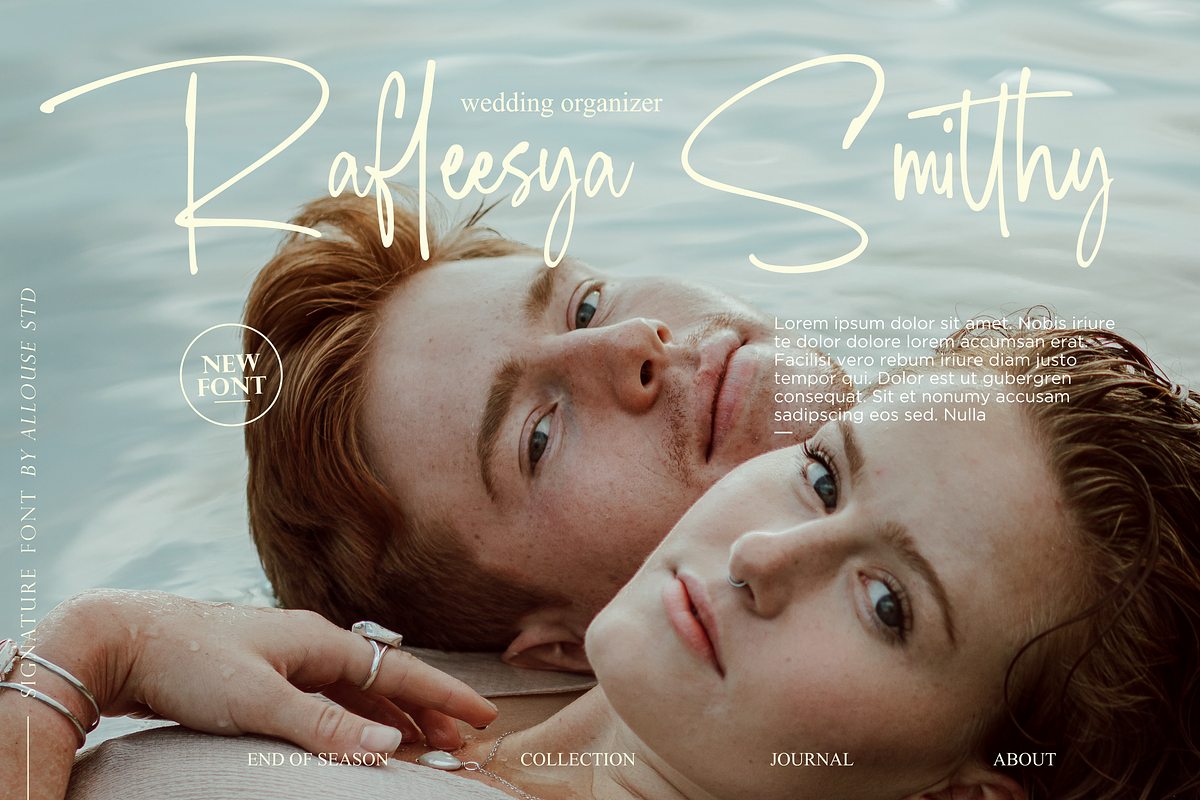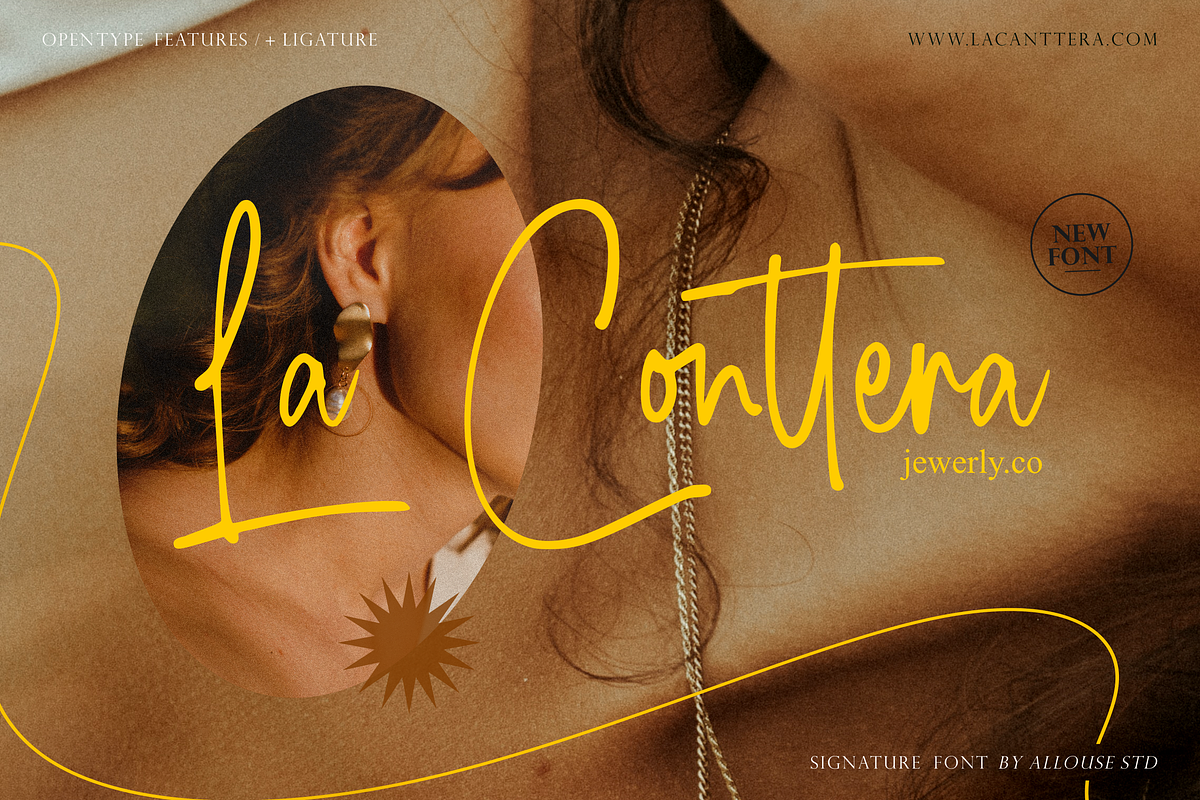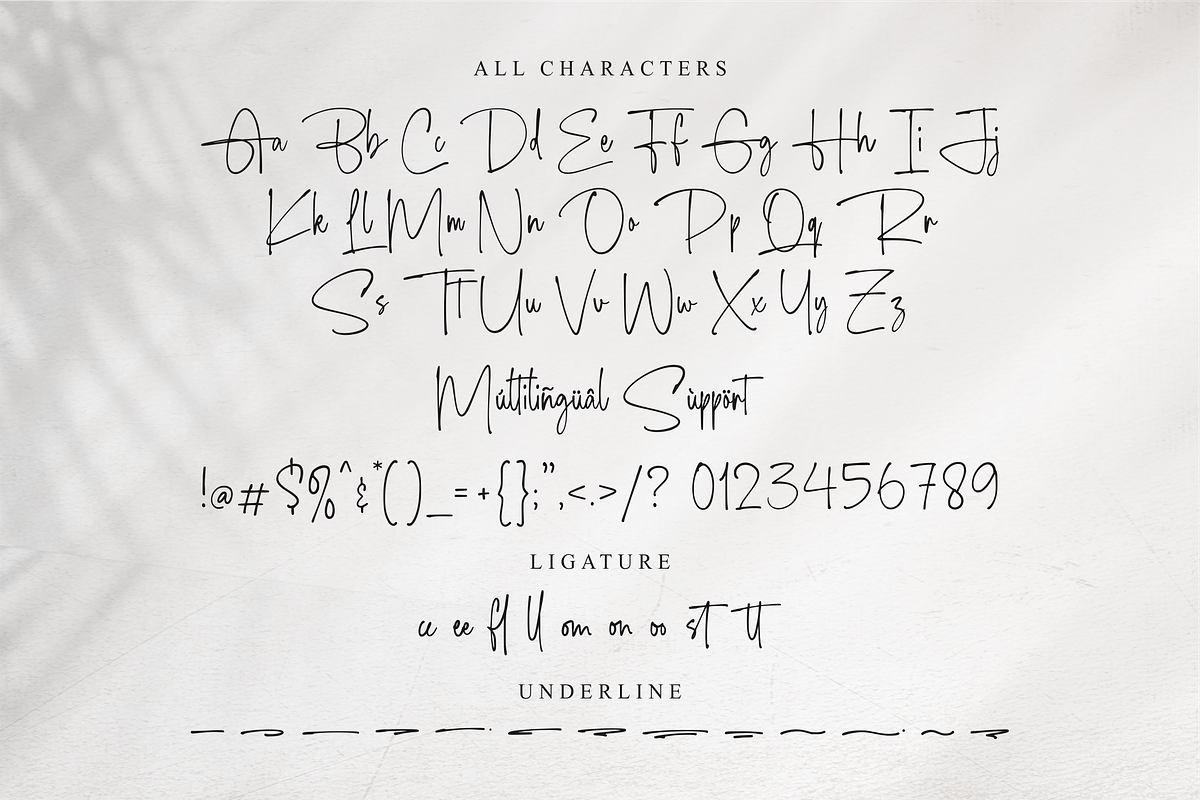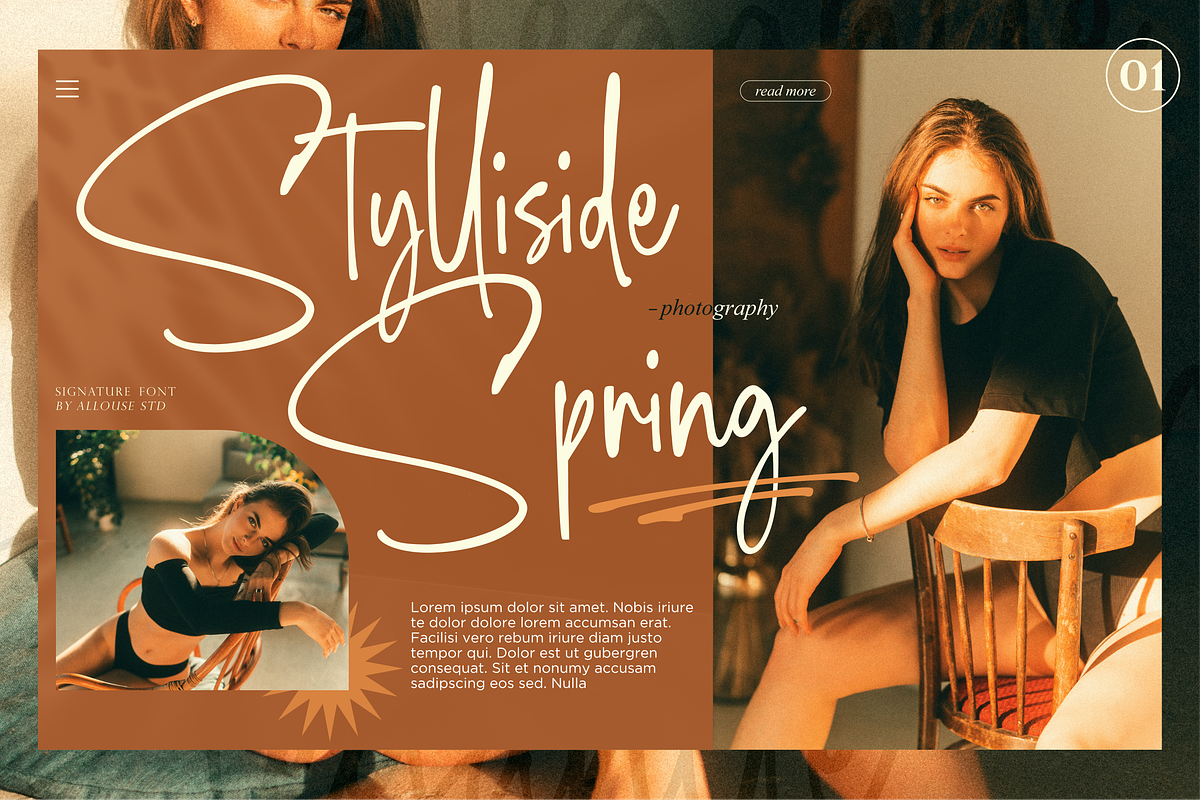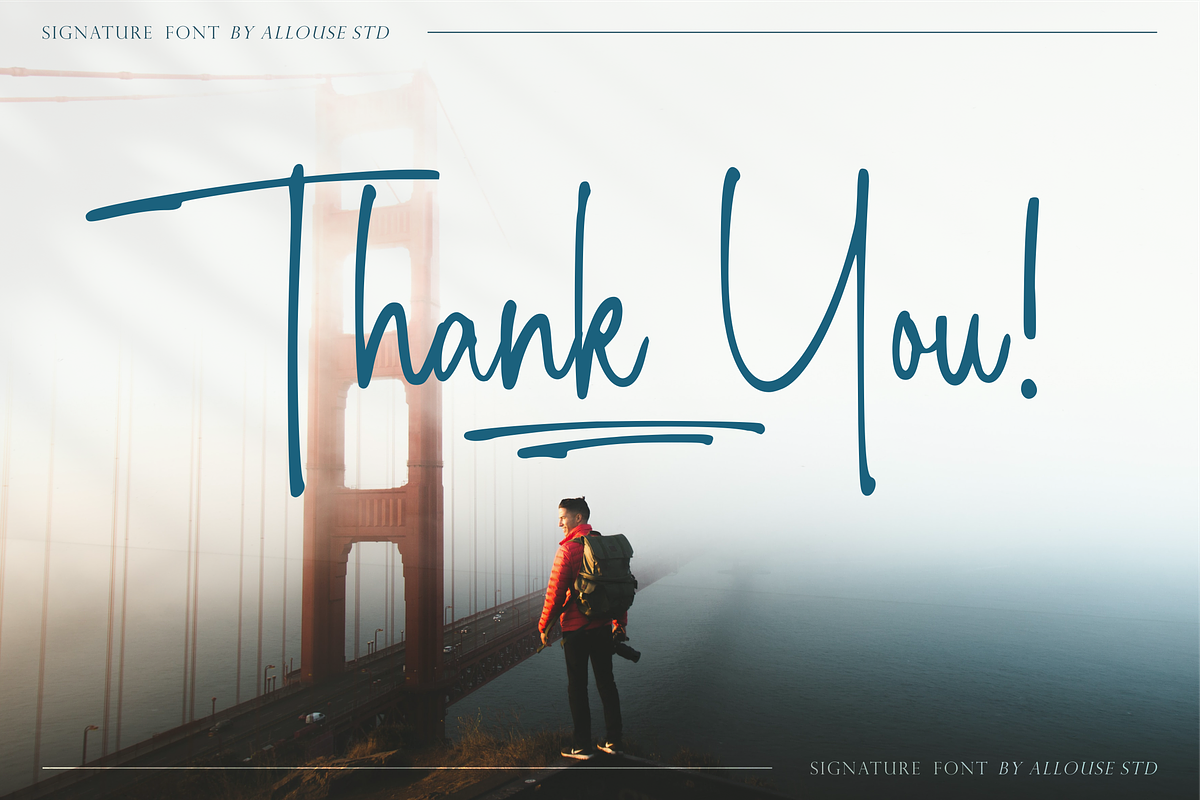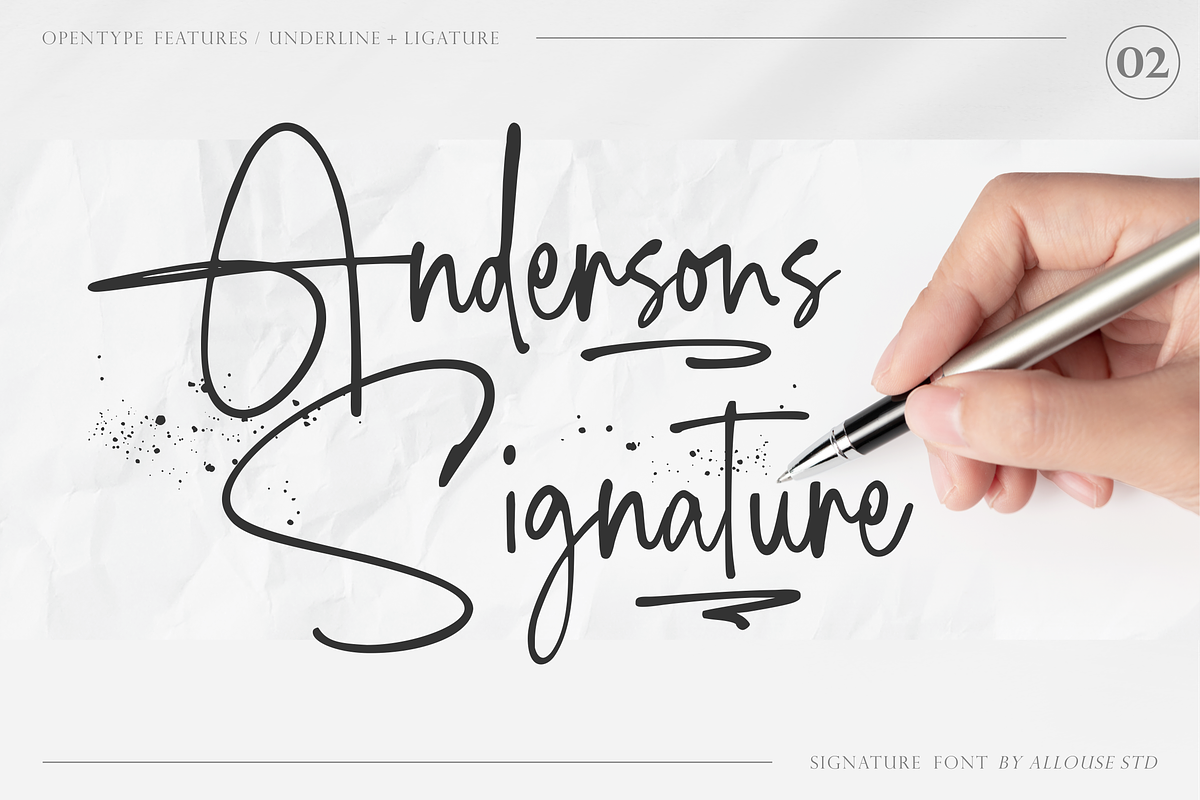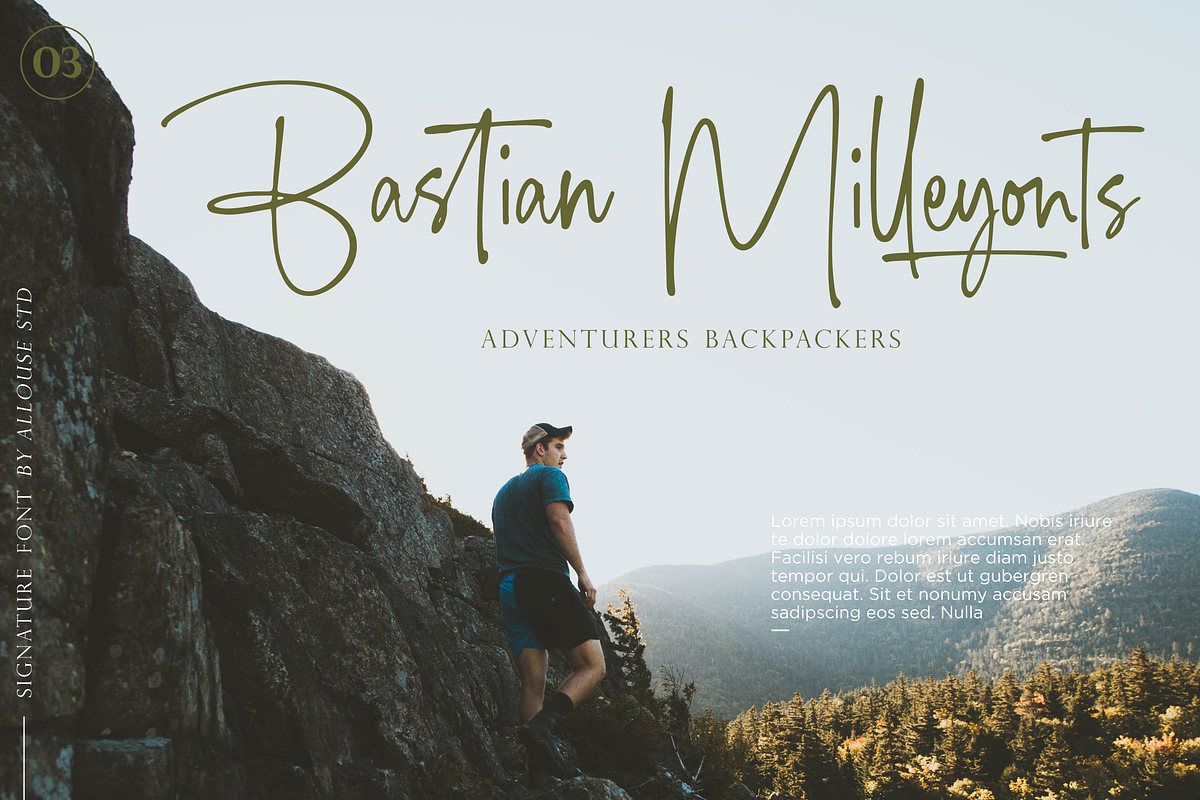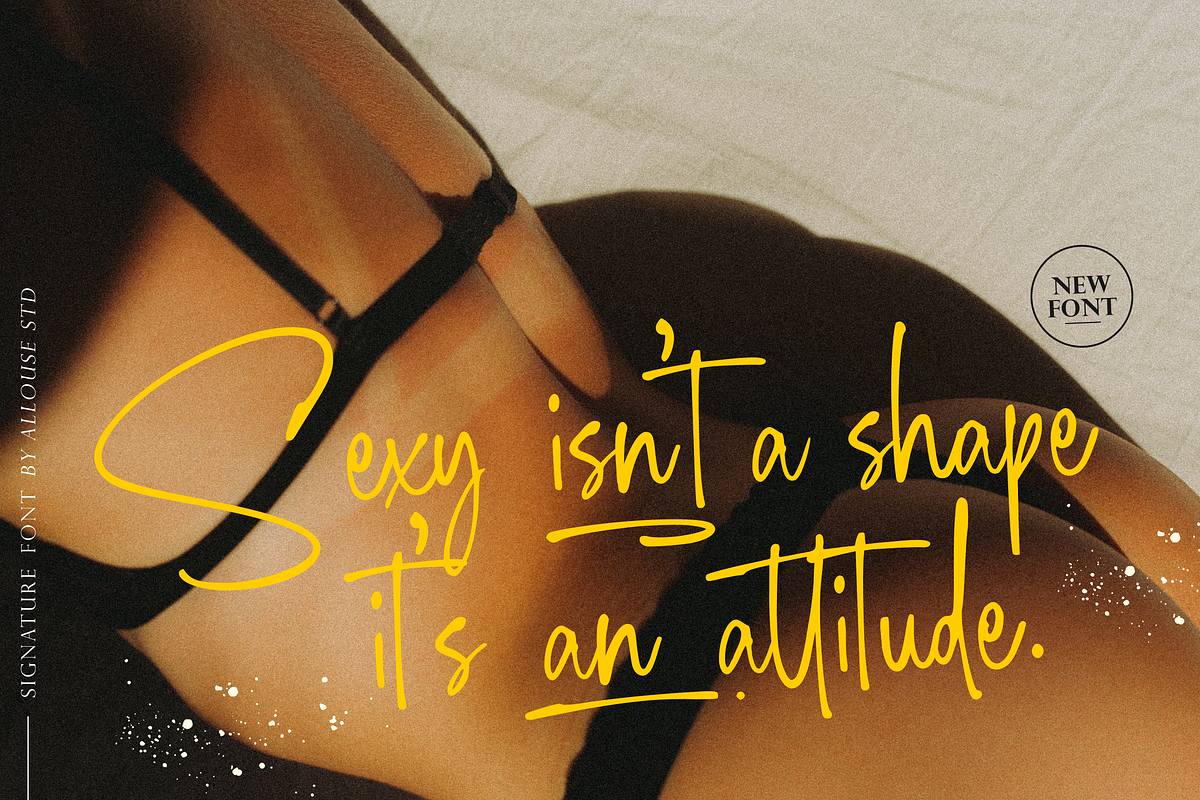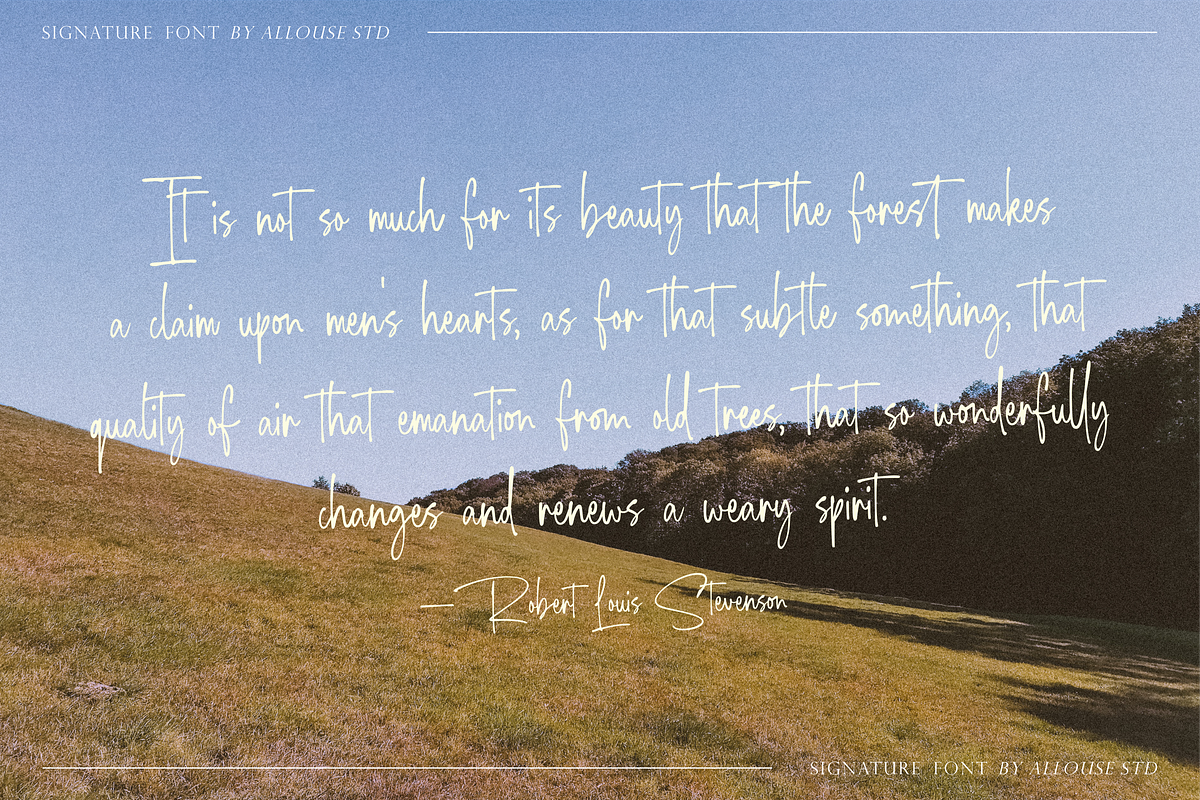
Amorfatti A Signature Font
Proudly Presenting, Amorfatti A Signature Font.
Amorfatti is perfect for any titles, logo, product packaging, branding project, megazine, social media, wedding, or just used to express words above the background.
Amorfatti also come with Multi-Lingual Support.